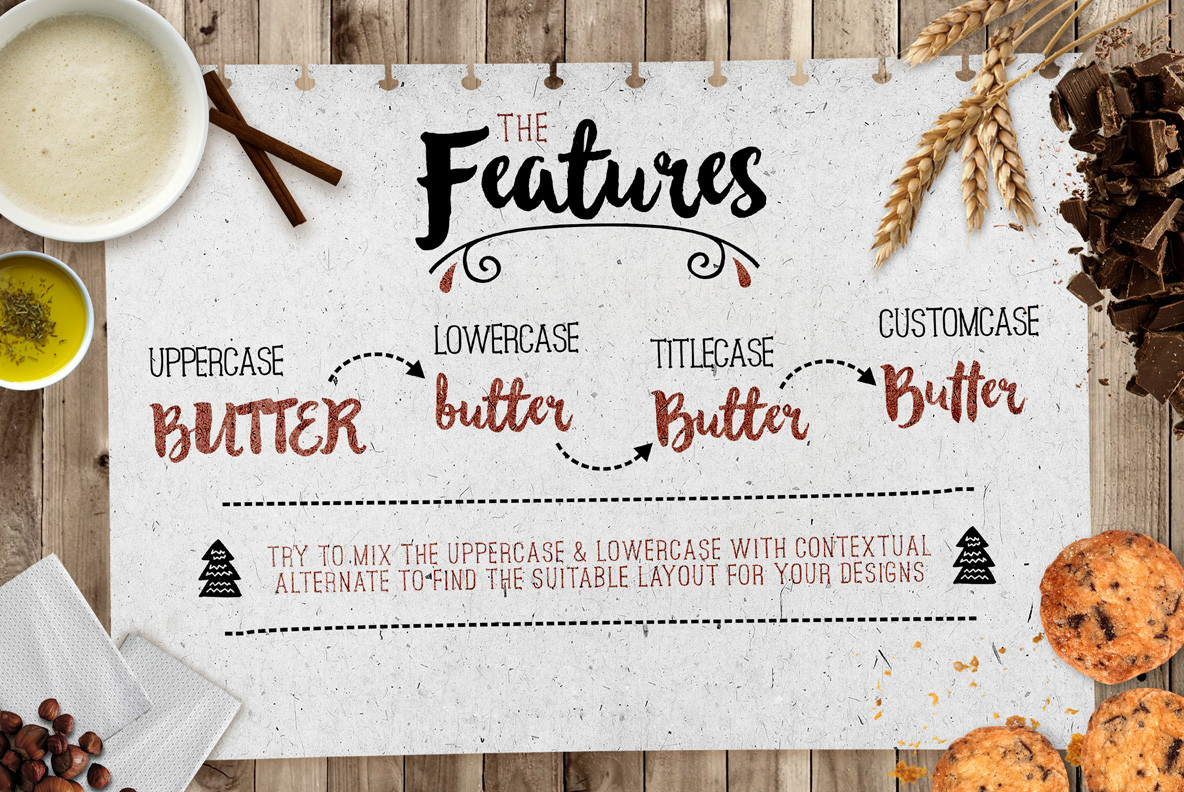
Hazelnut Font
Hazelnut is new font from Heybing Supply Co that was created as a dual-purpose font. With hand-painted characters and an irregular baseline, Hazelnut also contains doodles to bring it to life.